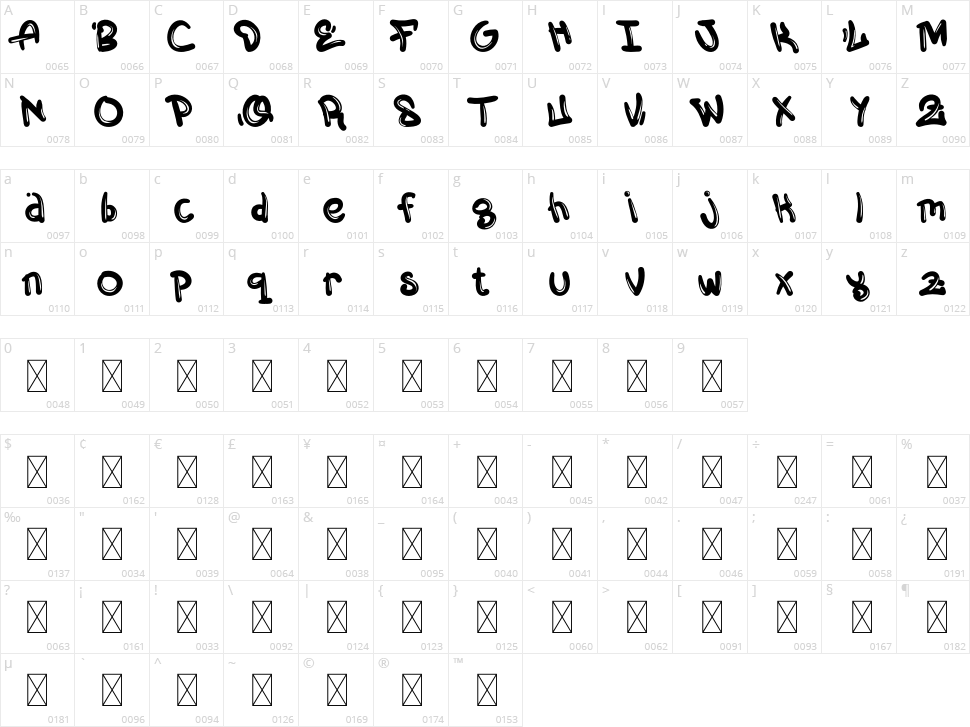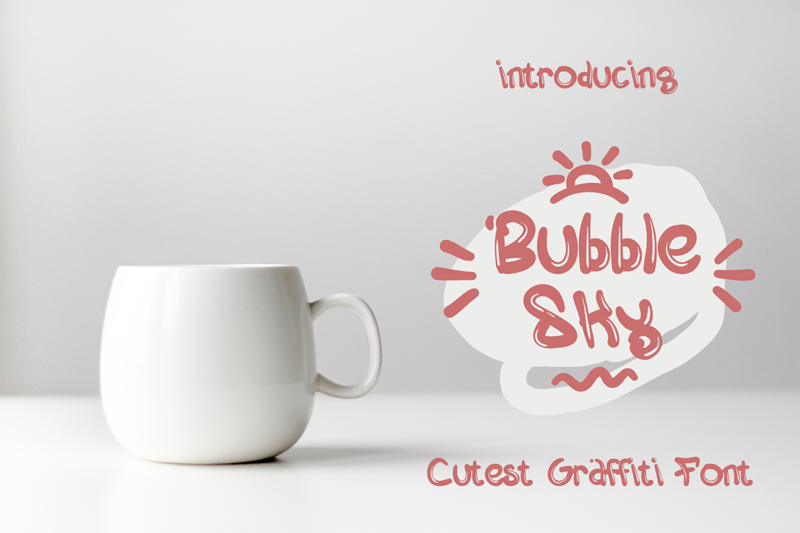
The BubbleSky is new font from Aphriell Art, elegant feel character set. To create the beautiful combination, just mix the uppercase and lowercase and the swash. The BubbleSky inspire from cute graffiti on the street.
The BubbleSky is suitable font for many creative products & designs.